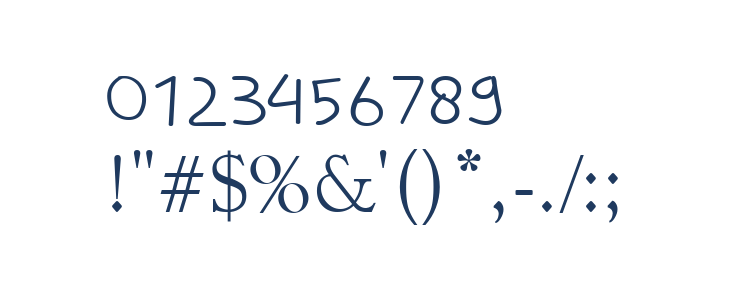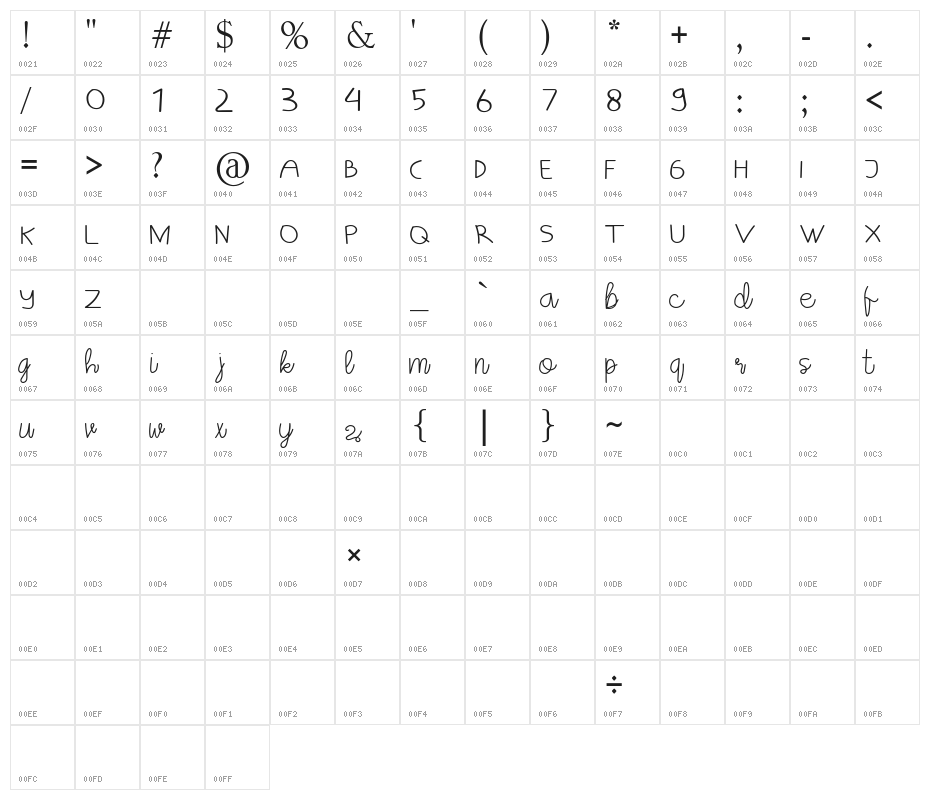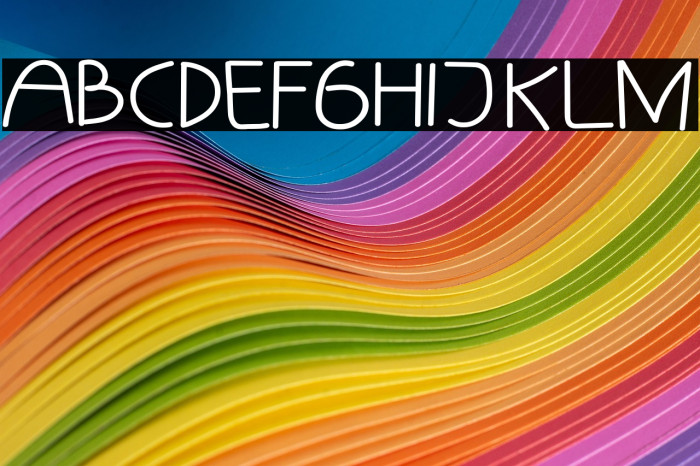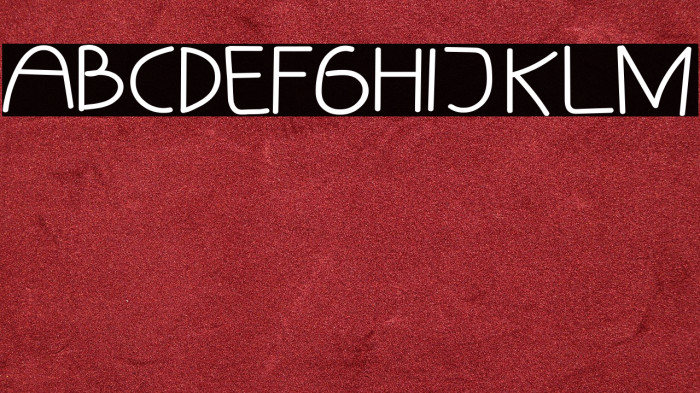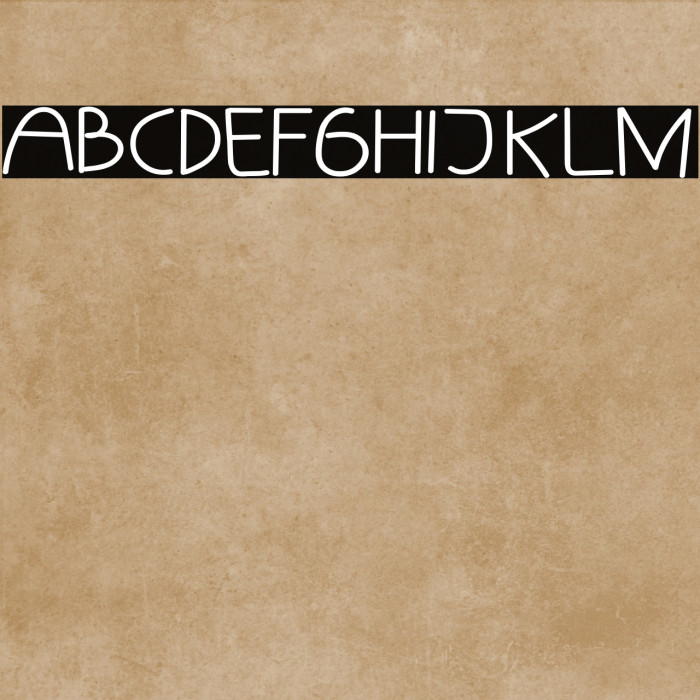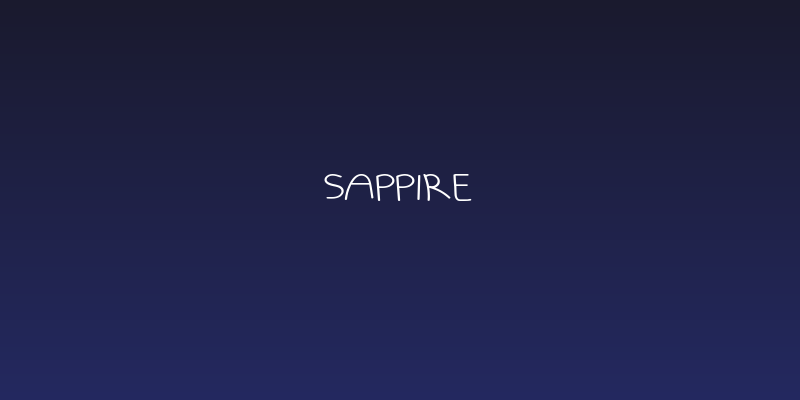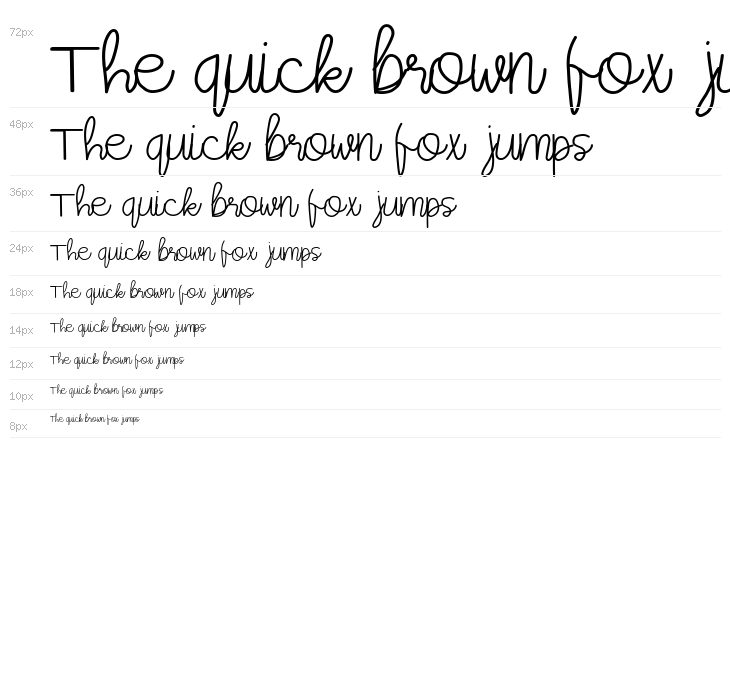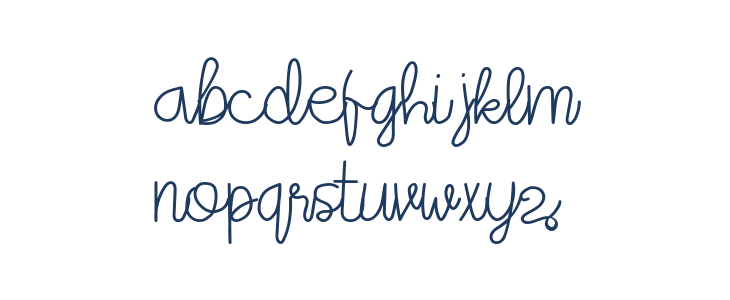
Sappire Font
Sappire Description
This playful and whimsical font features a unique blend of handwritten and decorative styles. The uppercase letters are characterized by their rounded, slightly irregular shapes, giving them a friendly and approachable feel. The lowercase letters are more fluid and cursive-like, adding a touch of elegance and charm. The numerals maintain the playful aesthetic with consistent stroke widths and rounded edges. Special characters are creatively designed to match the overall style, making this font versatile for various creative projects.
Overall StylePlayful, Whimsical
Use CaseHeadlines, Logos, Creative projects
Proposed ProjectsIdeal for children's books, greeting cards, playful branding, and creative invitations.